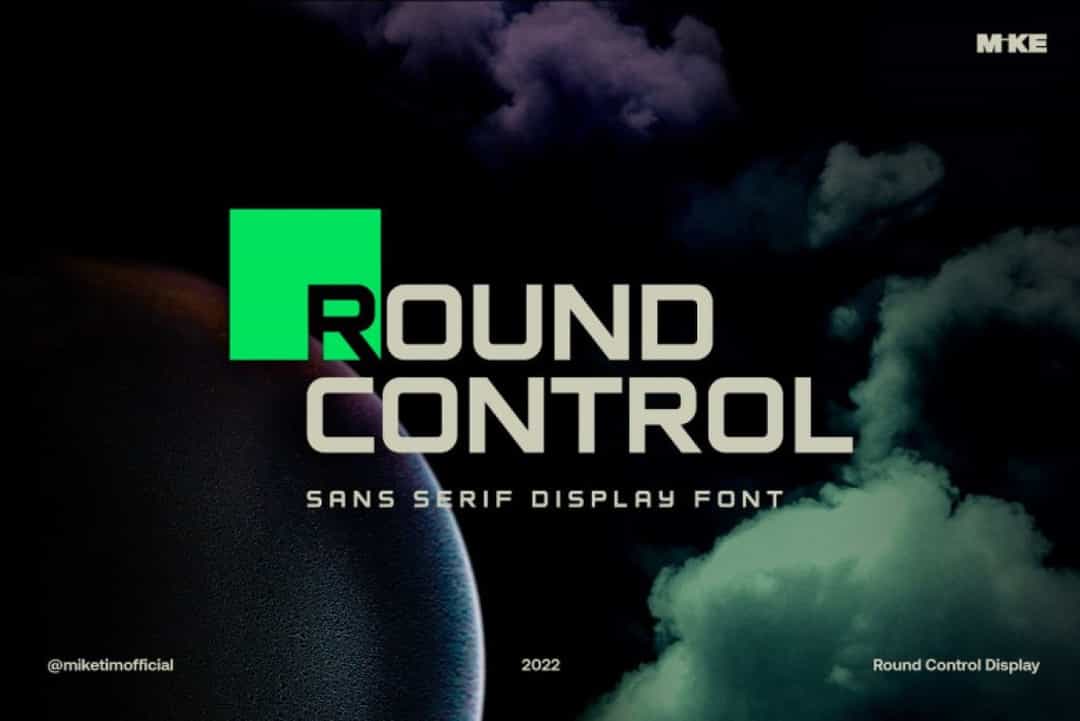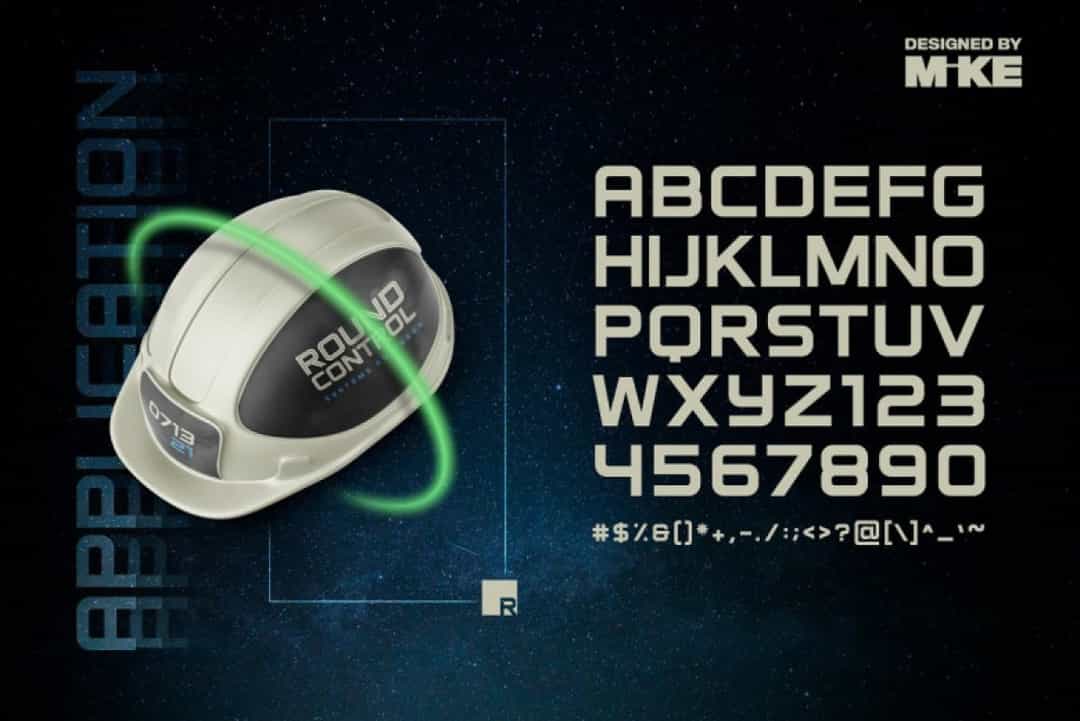
Round Control is an elegant sans-serif show font inspired by both aerospace and automotive industries, designed with a versatile style to work across many other styles. Available both as the standard and inline font.